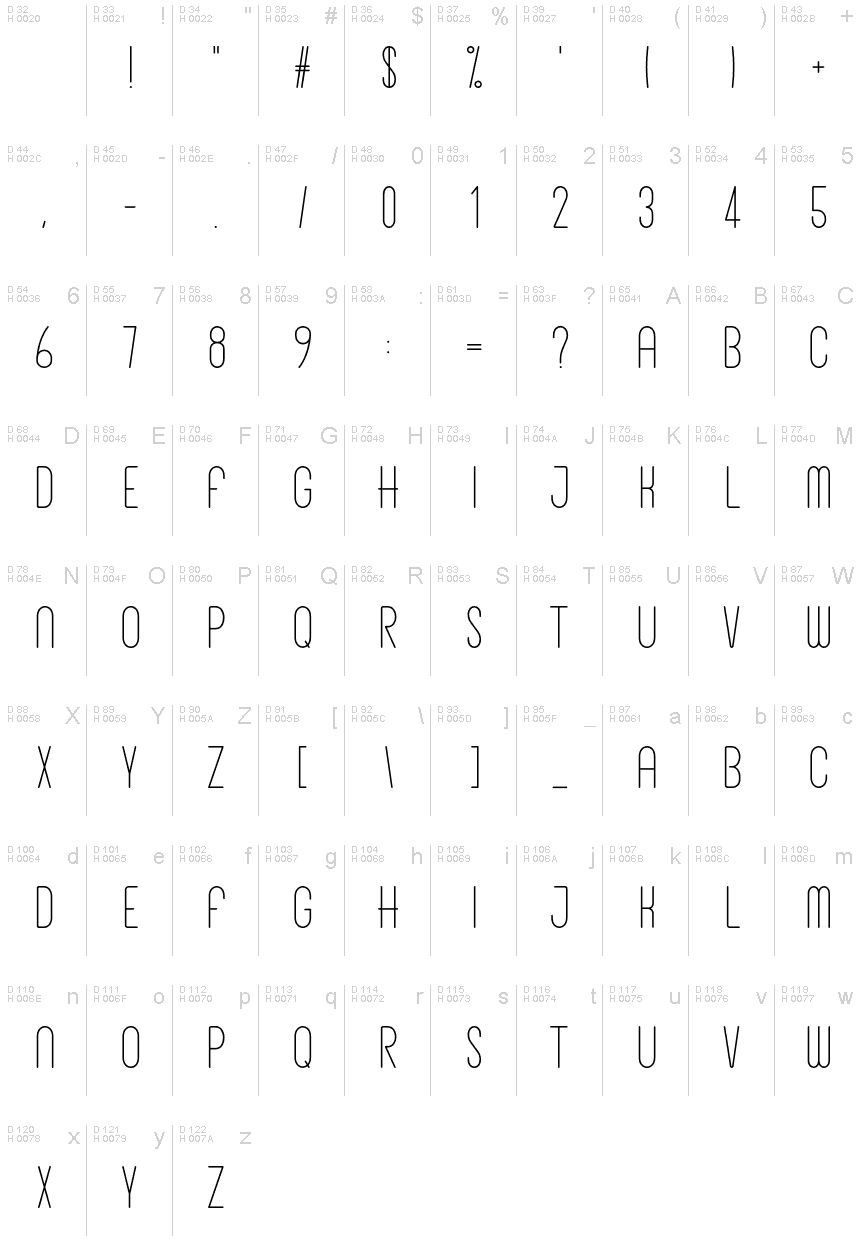
Paperclip Sans Serif
Paperclip Sans Serif, created by renowned font designer Josh Cherner, is a sleek and modern typeface that exudes elegance and sophistication. With its extra-light weight and extra-condensed width, this font is perfect for projects that require a minimalist yet refined touch.
Ideal for logo designs, website headings, and corporate branding materials, Paperclip Sans Serif brings a sense of professionalism to any project. Its clean lines and spacious letterforms ensure excellent legibility in both print and digital mediums.
Embrace the versatility of Paperclip Sans Serif to elevate your designs to new heights of aesthetic appeal.